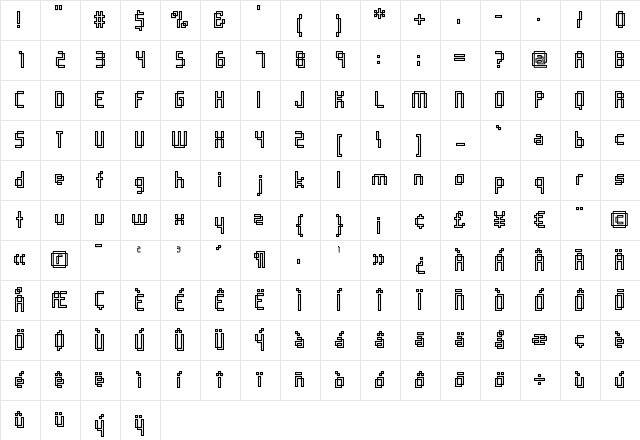
Complete Orgasmia NinetyOutline glyph index. Displaying only characters natively supported by Orgasmia NinetyOutline font.
Orgasmia is built around its visual character rather than neutral utility - its distinctive forms are designed to make an impression at display sizes.
Font Pairing: Pair with a clean neutral sans-serif for body copy to let Orgasmia's character lead without overwhelming the composition.
Pro Tip: Use Orgasmia exclusively at display sizes - it was designed to be seen, not read at length. Let a neutral companion handle body copy.